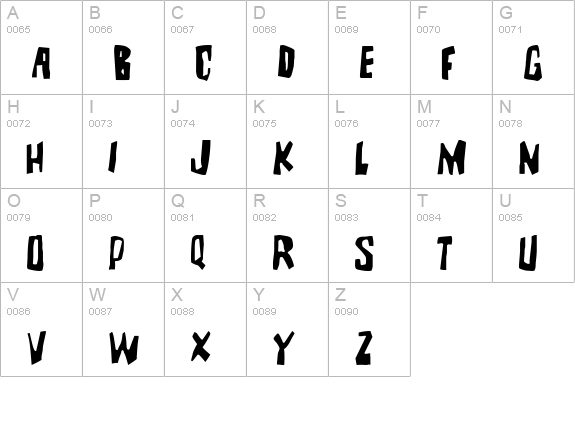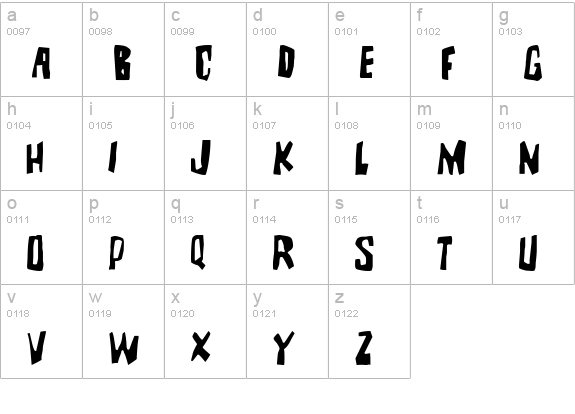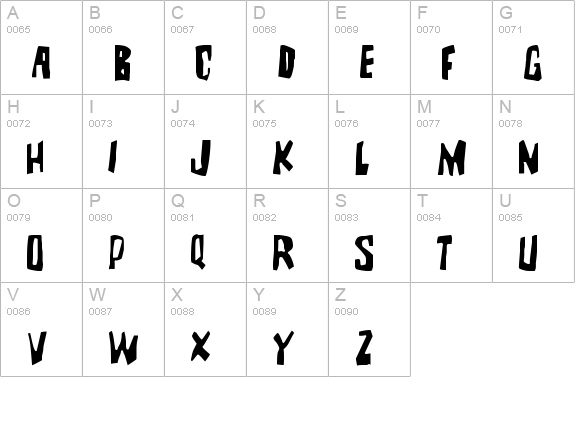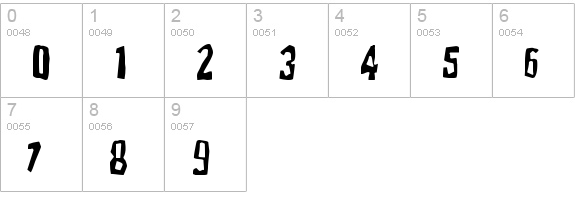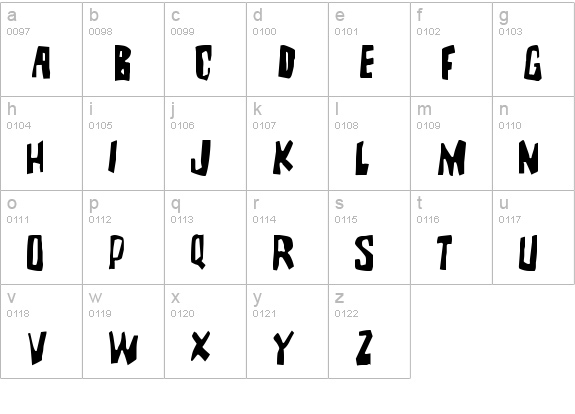
BrutalityExtra is a bold and impactful display font that exudes power and strength. With its sharp angles and aggressive letterforms, this font is perfect for making a statement in your designs. Whether you're creating posters, logos, or headlines, BrutalityExtra demands attention and commands respect. And the best part? BrutalityExtra is available for free download at FontsMarket.com. So you can add this fierce font to your collection without breaking the bank. Don't miss out on the opportunity to elevate your designs with BrutalityExtra - download it today and unleash its raw energy in your projects.